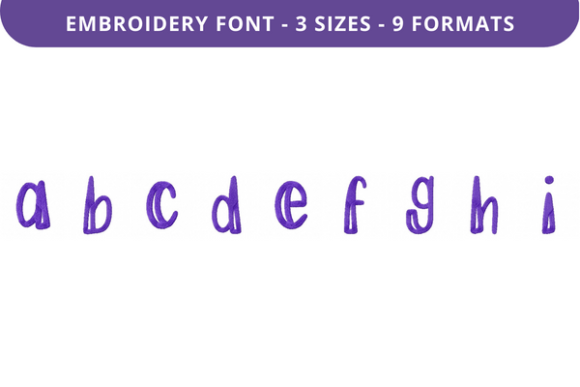
Ease My Mind Font a to I: A Creative Solution for Personalized Embroidery
In the world of personalized design and creative expression, the right font can make all the difference. Whether you're a professional designer, an entrepreneur looking to stand out, or an enthusiast exploring new ways to express yourself, Ease My Mind Font a to I offers a unique blend of style, functionality, and versatility that caters to modern needs. This high-quality embroidery font is not just a tool—it's a gateway to creativity and personalization.
What Is Ease My Mind Font a to I?
Ease My Mind Font a to I is a specialized embroidery font designed for those who want to add a touch of elegance and individuality to their fabric projects. It features a clean, flowing script that works beautifully for names, dates, quotes, and other personalized elements. The font’s design is both aesthetically pleasing and practical, making it ideal for use in a variety of applications—from custom apparel to home décor and promotional items.
One of the standout features of this font is its compatibility with multiple embroidery file formats. Whether you're using a traditional embroidery machine or a digital embroidery system, Ease My Mind Font a to I ensures seamless integration. This flexibility makes it a valuable asset for creators who work across different platforms and technologies.
The Growing Demand for Personalization in Design
In today’s market, consumers are increasingly seeking products that reflect their personality and values. This shift has led to a surge in demand for customized and bespoke designs. From personalized clothing to one-of-a-kind home accessories, the ability to tailor products to individual preferences is becoming a key differentiator in the creative industry.
Ease My Mind Font a to I fits perfectly into this trend. Its elegant and versatile design allows users to create unique, eye-catching pieces that resonate with their audience. Whether it's a wedding invitation embroidered with a couple’s initials or a custom T-shirt featuring a meaningful quote, this font empowers designers to deliver personalized experiences that stand out in a crowded market.
Why Creators and Entrepreneurs Are Paying Attention
For professionals and entrepreneurs in the creative space, Ease My Mind Font a to I represents more than just a font—it’s a strategic tool. In an era where branding and storytelling are crucial, having access to a high-quality, customizable font can elevate the visual appeal of your products and services.
Moreover, the font’s ease of use and adaptability align with the evolving workflows of modern creators. With support for multiple embroidery formats and compatibility with various machines, it streamlines the design process and reduces the learning curve for new users. This makes it an excellent choice for both seasoned professionals and newcomers to the field.
How It Meets Changing Needs and Expectations
As technology continues to advance, so do the expectations of creators and consumers alike. Today’s audiences demand not only quality but also convenience, speed, and customization. Ease My Mind Font a to I meets these demands by offering a solution that is both user-friendly and highly adaptable.
For example, the font’s compatibility with digital embroidery systems allows for greater precision and efficiency. This is particularly beneficial for businesses that rely on mass production or e-commerce platforms. By integrating this font into their workflow, they can maintain a consistent brand identity while meeting the growing preference for personalized products.
Additionally, the font’s aesthetic appeal aligns with current design trends that favor minimalism, elegance, and emotional resonance. As consumers become more discerning, the ability to craft visually striking yet meaningful designs becomes a competitive advantage. Ease My Mind Font a to I helps achieve this balance effortlessly.
Practical Applications and Real-World Examples
Let’s explore some practical examples of how Ease My Mind Font a to I can be used in real-world scenarios:
- Wedding Invitations: Couples often seek unique ways to personalize their invitations. Using this font, they can add a romantic touch with hand-written-style text that feels intimate and personal.
- Custom Apparel: Fashion brands and independent designers can incorporate this font into t-shirts, hoodies, and accessories to create standout designs that capture attention.
- Home Décor: From monogrammed cushions to embroidered wall art, this font adds a refined and artistic element to home interiors.
- Marketing Materials: Businesses can use this font to create branded merchandise such as tote bags, notebooks, and promotional items that reinforce their brand identity.
These examples highlight how Ease My Mind Font a to I bridges the gap between creativity and practicality, making it a valuable asset for a wide range of applications.
Whether you're looking to enhance your brand, create custom products, or simply explore new avenues of self-expression, this font offers the perfect blend of style and functionality. Embrace the power of Ease My Mind Font a to I and take your embroidery designs to the next level.